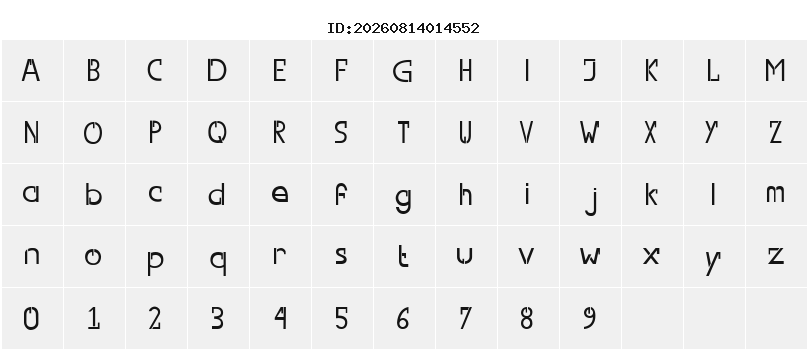
• Font Name: Switch
• Designer: Kassandra DanaÈ Escobar Rubio
About Switch.ttf
Switch.ttf is a modern, elegant sans-serif font designed for ultimate readability and visual harmony. Perfect for branding, headlines, web design, and print materials.